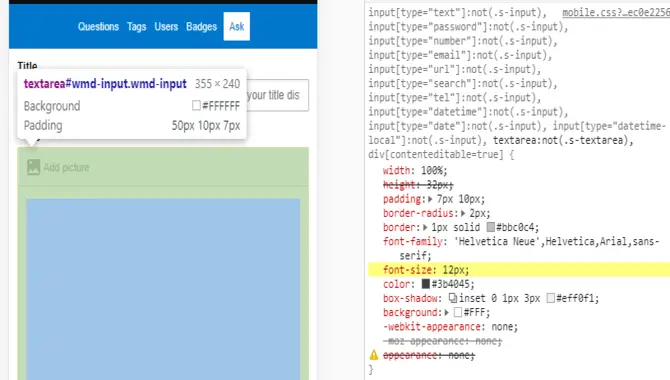
A Guide To Improving Mobile Font Size And Readability
In today’s digital age, mobile devices have become the primary mode of communication for many people. As a result, it’s more important than ever to ensure that your mobile content is easily readable and accessible. One crucial factor in achieving this goal is font size.
Font size can significantly impact readability and engagement, making it a crucial element to consider when designing your mobile content. Do you find yourself squinting at your smartphone screen? Are you straining your eyes to recognize the words on your mobile device? You’re not alone.
Mobile font size and readability are major concerns for both users and designers. With mobile device usage increasing daily, it’s more important than ever to ensure that your users can easily read the content on your site. Here, we will delve into the nitty-gritty of mobile font size and readability. And share some guidelines to help you create a mobile-friendly typography experience.
Mobile Font Size
About Mobile Font Size
Mobile users expect good readability, especially when it comes to font size. Setting the mobile font size at 16 pixels can help ensure comfortable readability for your audience. The minimum size for body text should be around 16-17 points.
But the optimal mobile font size for body text is 16 pixels, with smaller typefaces having a minimum of 14 pixels. Using ems can make mobile font size scalable and adaptable to different screen resolutions and devices. Different fonts may have unique minimum font size requirements for readability.
You must experiment and use your discretion when selecting the optimal font size for your mobile design. Keep in mind that legibility and readability should take priority in your design over style. So, if you want your audience to read your mobile text, go for readability and ensure your mobile font is big and clear.
Mobile Font Size Web Typography Guidelines
Mobile Web Typography Guidelines
Mobile browsing has significantly increased in the past five years; optimizing websites for mobile devices is crucial. Choosing font sizes for mobile sites can be tricky and requires following guidelines based on the design process. Mobile typography aims to achieve clarity, readability, and ease of use for users.
Short text blocks and low-contrast fonts should be avoided. Sans-serif fonts work best for small screens, while serif fonts can be used for larger screens. It is vital to remember that mobile typography is not only about choosing the right font size and style but also about ensuring that the text blocks are well-structured and easy to scan.
Adequate line spacing, justification, and padding can go a long way in enhancing the readability of your mobile site. Following these guidelines can significantly improve mobile font size and readability and make your website more accessible to users.
Body Fonts Should Be About 16px
Regarding mobile web typography, it’s important to consider font size for optimal readability. Generally, font sizes should be at least 16px for body text, with 14px being the smallest you should go depending on the font style. It is also necessary to consider various font characteristics when determining the appropriate font size.
Apple recommends a minimum font size of 17pt for body text on mobile, while Google recommends 16p (equal to 16pt in iOs), but experts suggest at least 16px for optimal legibility. Although there is no official ADA-enforced minimum font size for website use, it’s essential to prioritize readability for all users.
When designing for a desktop, font sizes should be around 16px to 18px for legibility, while headings should be around 1.96 times larger than your body text. Additionally, it’s important to note that thin-stroked fonts require larger font sizes for optimal legibility. Adhering to these mobile web typography guidelines ensures your mobile site is easily readable and accessible to all users.
Text Input Sizes Should Be At Least16px
When it comes to improving mobile font size and readability, there are several guidelines that web designers should follow. One important rule is to keep the body text size at a minimum of 16 pixels for optimal readability, which is especially important for visually impaired readers.
It’s also important to note that font sizes smaller than 16 pixels on text input boxes can cause problems on iOS browsers. Because the browser may zoom in and obscure the text, for pages that contain heavy amounts of text, a minimum of 16 pixels is ideal with 18 pixels being an even better starting point.
Larger font sizes, such as 20 pixels or higher, may feel awkward at first but can greatly improve the reading experience for users. Following these guidelines for mobile font size and readability can ensure that your website is accessible and easy for many users.
The Secondary Text Should Be About 2 Sizes Smaller Than Your Paragraph Text.
The Secondary Text Should Be About 2 Sizes Smaller Than Your Paragraph Text
Following mobile web typography guidelines is key when improving mobile font size and readability. One important guideline is to use a smaller font size for secondary text, such as 13-14px, with a lighter shade of grey to denote lesser importance. Additionally, font sizes should be responsive, with 16px being the recommended size for mobile devices and 18-20px for larger devices.
For optimal mobile body text, a font size of at least 16px is advisable, with 14px being the smallest for unique typefaces. Using only a few fonts and sizes on one page is also important, as this can make text legibility difficult to control across different devices.
To further improve mobile font size and readability, consider using landscape.css and portrait.css to adjust text size for different device widths and heights. Following these guidelines can create a more user-friendly mobile experience for your audience.
Always View Your Designs On An Actual Device.
When it comes to improving mobile font size and readability, several design guidelines can help. Striking the perfect balance with typography is crucial for mobile design without defaulting to standard fonts. Mobile typography plays a powerful role in shaping the typeface and website context.
Additionally, viewing designs on actual mobile devices and not just laptop screens is important. While there’s no exact science to picking mobile font sizes, walkthroughs for UI projects are available for Fortune 100 companies to startups. These resources can ensure that your mobile designs are optimized for readability and visual impact.
Be Familiar With Material Design And Ios Standards.
Be Familiar With Material Design And Ios Standards
Following some guidelines for mobile web typography is important to improve mobile font size and readability. One important tip is to set the base font size to 16 pixels, which is ideal for mobile screens. It’s also helpful to use ems to allow for easy scaling of font sizes.
Another important consideration regarding mobile typography is familiarity with Material Design and iOS standards. Both design systems have specific guidelines for typography, including recommended font sizes. For example, Material Design suggests a minimum font size of 14px, while iOS recommends a minimum size of 15px.
Overall, it’s important to keep these guidelines in mind when it comes to improving mobile font size and readability and choose a font size appropriate for the device and the user’s needs. Body text font size should be at least 16px to ensure readability on mobile screens.
What Is The Ideal Mobile Font Size?
The ideal mobile font size for comfortable readability is 16 pixels. However, Apple and Google recommend different sizes for their respective default fonts – Apple recommends a minimum size of 17pt, while Google recommends a size of 16sp. Body text should be at least 16 pixels in size for mobile screens but can go as low as 14px under specific circumstances.
While designing mobile apps or sites, one should consider accessibility and user comfort with font size. Using “em” in CSS can effortlessly scale font size relative to the document. In conclusion, designers who have the end-users in mind should test font sizes on different mobile devices’ screens to determine which size best provides comfortable reading for the users.
How Can I Increase The Font Size On My Mobile Phone?
How Can I Increase The Font Size On My Mobile Phone
Are you having trouble reading tiny text on your mobile phone? Luckily, increasing the font size on your phone is quick and easy. On Android, you can adjust the font size in your device’s settings or by using third-party apps. Google Chrome also has a built-in font size setting for better readability.
The font size on your mobile screen may not match your settings due to default settings or other factors. Additionally, font size settings impact every web page you visit but can be adjusted again for individual pages for optimal readability.
One way to increase the font size on your mobile phone is to turn on the accessibility settings on your phone. This will allow you to change the font size and other settings to make your phone easier to use. You can also adjust the font size in many apps you use on your phone. For example, if you use a word processor, you can adjust the font size to make the text easier to read.
Finally, you can also change the font size in the settings menu on your phone. This is usually located in the “Display” section of the settings menu. By making a few simple adjustments, you can improve your mobile font size and readability in no time.
When it comes to mobile font size and readability, there are important guidelines that must be considered to create a seamless user experience for your audience. These guidelines include font size, text input sizes, secondary text, device testing, and familiarity with Material Design and iOS standards.
Keeping these factors in mind will help create designs that are aesthetically pleasing and easy to read and navigate. The ideal mobile font size is about 16px for the body fonts, 16px for text input sizes, and two sizes smaller than your paragraph text for secondary text.
If you need help increasing the font size on your mobile phone, reading this detailed guide may help to enhance your mobile font size and readability.
1. What Font Size Is Best For Mobile?
Ans: The ideal font size for mobile screens is typically 16 pixels. For body text on mobile devices, it’s recommended to use at least 16px, with 14px being the smallest suggestion. Headlines should be larger than the body text, and text input should be at least 16px to avoid iOS auto-zoom.
2. Is 12px Too Small For Mobile?
Ans: 12px font size is generally considered too small for mobile text. It’s recommended to use a font size of at least 16px for mobile devices to improve readability and reduce eye strain. Consider using a responsive design or scalable font to ensure readability on different screen sizes.
3. What Is The Best H1 Size For Mobile?
Ans: The best h1 size for mobile can vary depending on the font family and style used. However, a font size between 22-32 pixels generally works well for h1 on mobile. It is important to ensure that the font size is legible on small mobile screens.
4. What Font Size Should I Use, Mobile Or Desktop?
Ans: The ideal font size for comfortable reading on mobile devices is 16 pixels. When designing for mobile, body text should be at least 16px. Android users can change font style using third-party apps or built-in settings. You can set the font size on Android phones through phone settings or applications.
5. Is There Any Difference Between Ios And Android When It Comes To Increasing Font Size?
Ans: While iOS and Android devices offer options for changing font sizes, the methods may differ. On Android, changing font size for messages and overall display is quick and easy, and there are different methods for changing font sizes in different apps.